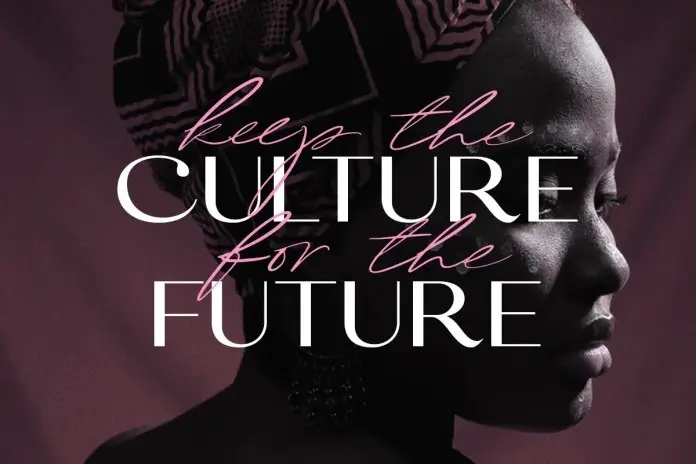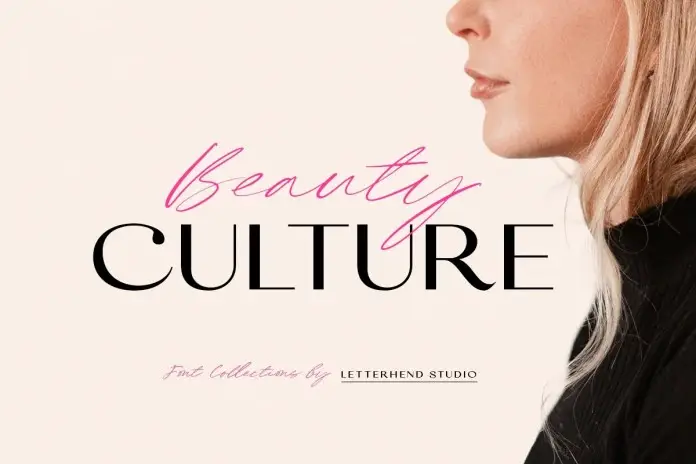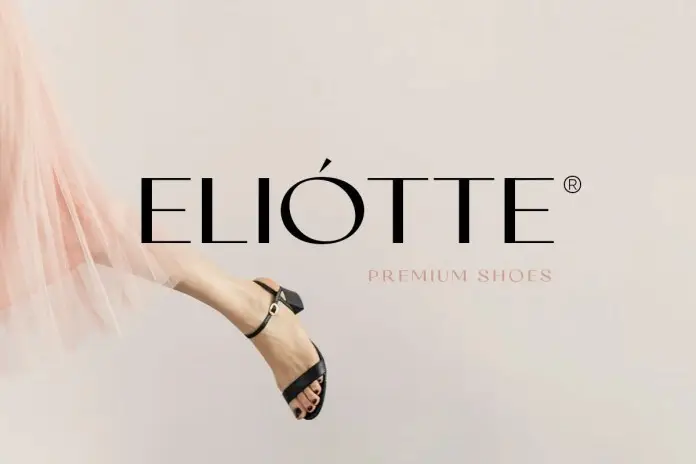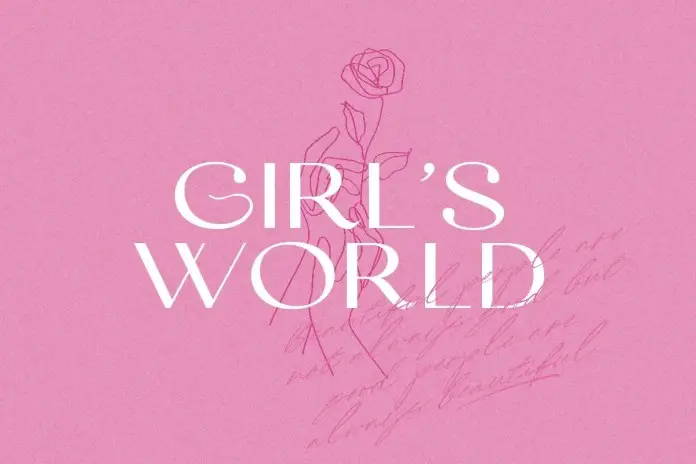
Beauty Culture Sans Serif Font
The Beauty Culture Sans Serif Font is a modern typeface designed to bring a touch of elegance and clarity to your projects. With its clean lines and contemporary aesthetic, this font is perfect for a variety of applications, from branding and logos to web design and print materials.
• Stylish and legible design
• Ideal for branding projects, advertisements, and social media graphics